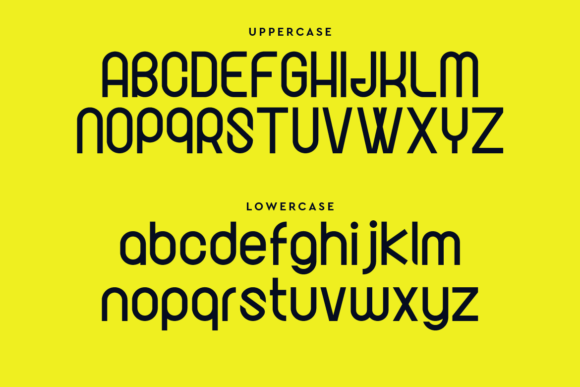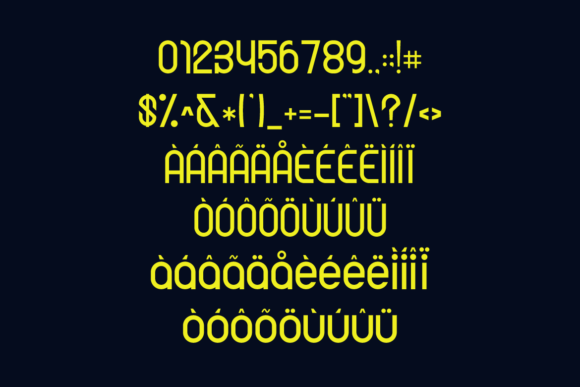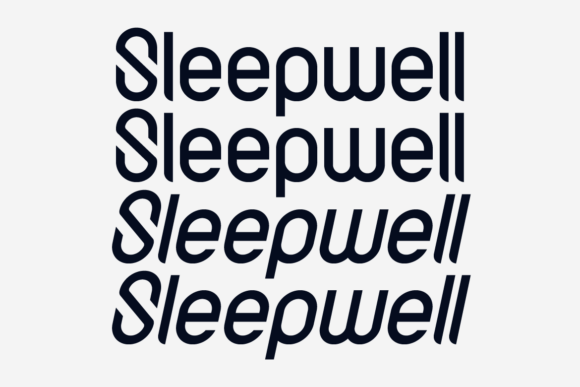
Introduction to Romanine Font
Have you ever been stuck on a creative project, staring at a blank page or screen, searching for the perfect font to bring your vision to life? This is where the magic of the Romanine Font comes in – a sleek and stylish sans serif font that combines modern minimalism with timeless sophistication. Its clean lines, balanced proportions, and smooth curves make it perfect for a wide range of applications, from branding and editorial layouts to social media graphics, web design, and packaging.
Whether you’re a seasoned designer or just starting out, the Romanine Font is an invaluable design resource that will elevate your creative projects and give you the freedom to focus on what matters most – bringing your ideas to life. With its high quality and versatility, this font is a must-have for any designer looking to add a touch of elegance and sophistication to their work.
Key Features of Romanine Font
- High-quality design with a unique, elegant style, perfect for creative projects and design resources.
- Features a transparent background, allowing for seamless integration into designs and creative projects.
- Designed with a high level of detail, making it ideal for use in logos, typography, and other design elements.
Honest Review: Romanine Font
I recently came across the Romanine Font while searching for a free download to enhance my creative project. I was pleasantly surprised to find a high-quality font that could elevate my design.
Here’s what works well:
- ✨ Elegant and sophisticated design that’s perfect for formal or business projects.
- ✨ High-quality raster images with transparent background, making it easy to integrate with any design resource.
- ✨ A wide range of font styles and weights to choose from, giving you plenty of creative freedom.
- ⚠️ Some users might find the font a bit too ornate or overpowering, so use with caution.
Overall, I’m impressed with the Romanine Font’s design and versatility. It’s a great addition to any design resource, especially for those who want a high-quality, elegant font. With a little creativity, it can be a game-changer for your next creative project.
Romanine Font
Tips for Getting the Most Out of Romanine Font
For a transparent background, use the font with a white or light-colored background to make it stand out. Experiment with different font sizes and styles to add visual interest to your design.
The Romanine Font is suitable for a variety of creative projects, including:
- Typography
- Infographics
Alternatives to Romanine Font
1. Playfair Display Font
Playfair Display is a high-quality serif font ideal for creative projects that require elegance and sophistication. It’s perfect for magazine covers, book titles, and other design resources that need a touch of luxury.
Compared to Romanine Font, Playfair Display has a more ornate and luxurious feel, making it suitable for high-end designs. It’s available for free download and comes in various formats, including TTF and OTF.
Great Vibes is a beautiful, high-quality script font that’s perfect for creating a warm and inviting atmosphere in your design. It’s ideal for wedding invitations, branding materials, and other creative projects that require a personal touch.
Compared to Romanine Font, Great Vibes has a more fluid and cursive feel, making it suitable for designs that need a sense of movement and energy. It’s available for free download and comes with a transparent background, making it easy to use in any design project.
Alex Brush is a elegant and refined script font that’s perfect for creating a sophisticated and creative atmosphere in your design. It’s ideal for branding materials, magazine articles, and other design resources that require a touch of sophistication.
Compared to Romanine Font, Alex Brush has a more delicate and refined feel, making it suitable for designs that need a sense of elegance and poise. It’s available for free download and comes in various formats, including TTF and OTF.